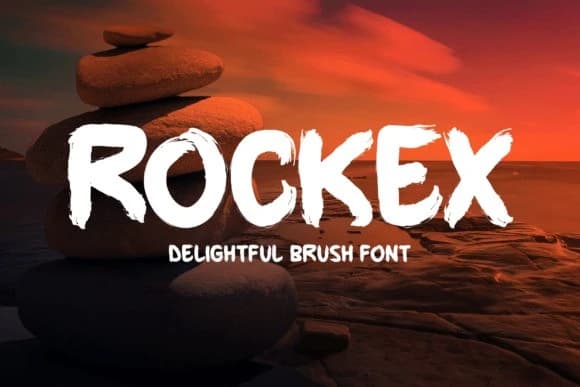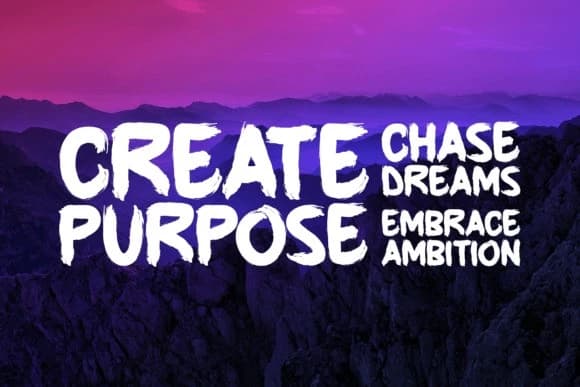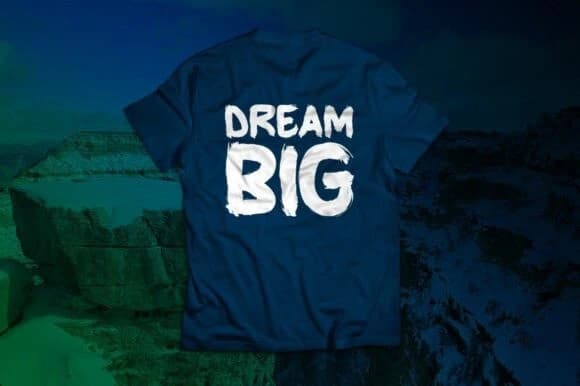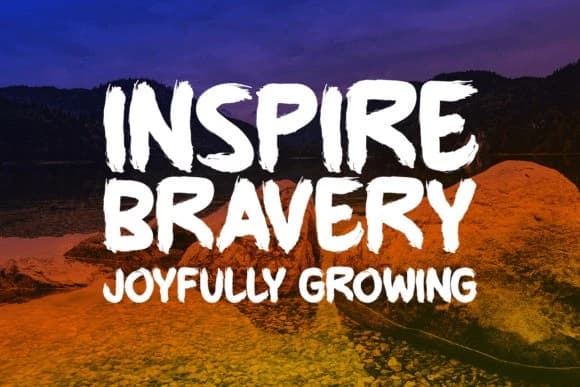
Rockex Brush Font
Rockex Brush Font is an expressive brush-style font that blends bold strokes with a naturally handcrafted charm. Its energetic movement and artistic texture make it an excellent choice for a wide variety of creative projects, including logos, stationery
Rockex Brush